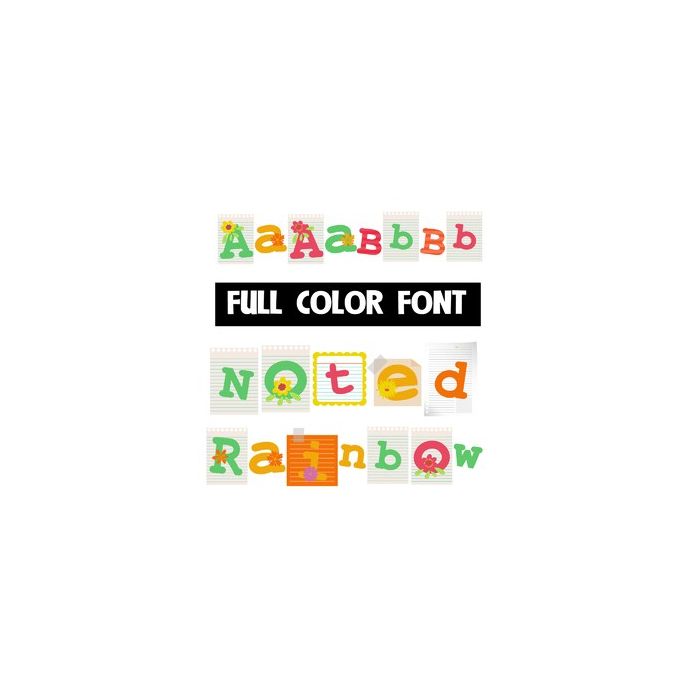
This full-color font features a bright color palette and flowers with a mix of lettering. There is an alt upper and lowercase with additional colors that you can access through Silhouette's glyph map.